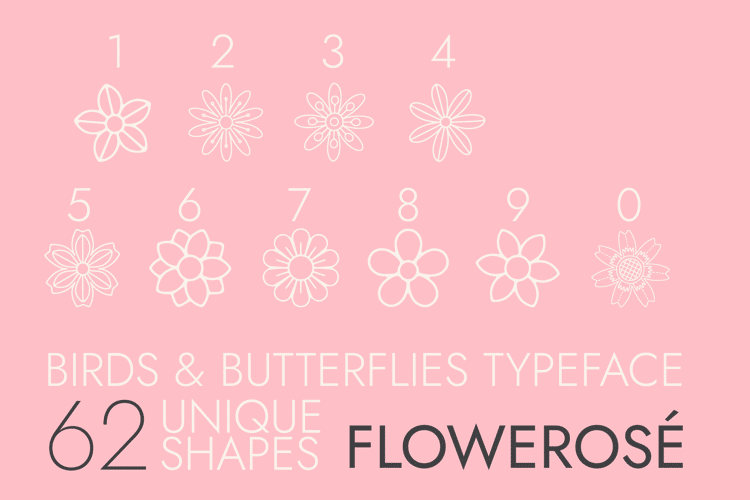
Flowerose Font
🎨 Font Name: Flowerose by Minimalist Art Studio
🎨 Font Description: Flowerose is a decorative floral typeface with 62 unique shapes and multilingual support—perfect for nature-inspired branding, packaging, and artistic layouts.
✔ Complete Latin set + multilingual diacritics
✔ Alternates, stylistic sets & ligatures
✔ Numbers, small caps, and extended punctuation
✔ Bonus italics and family styles